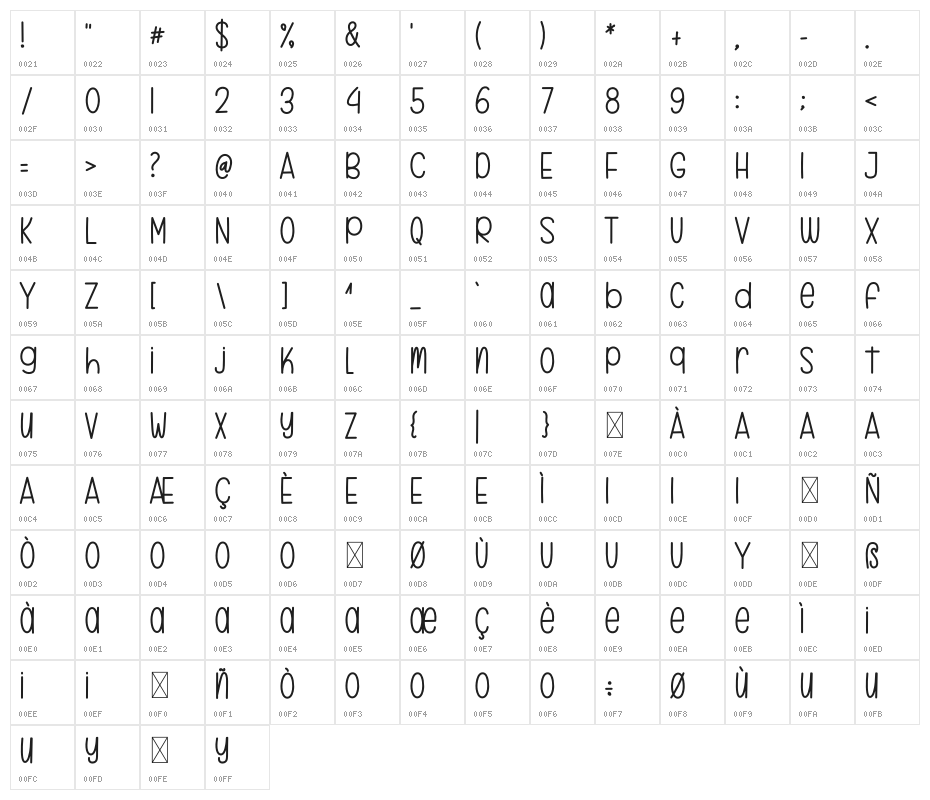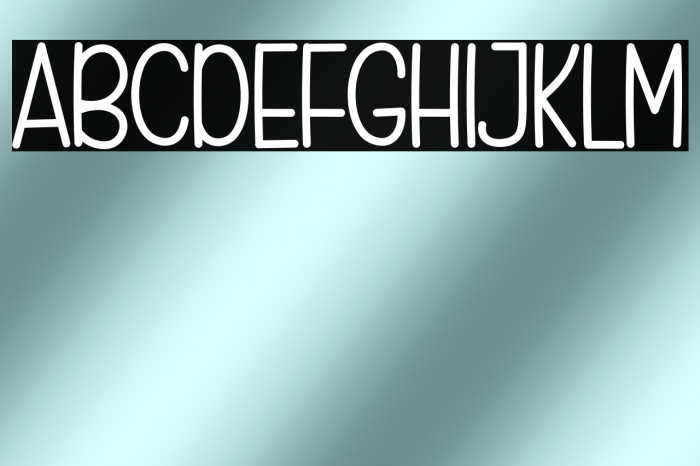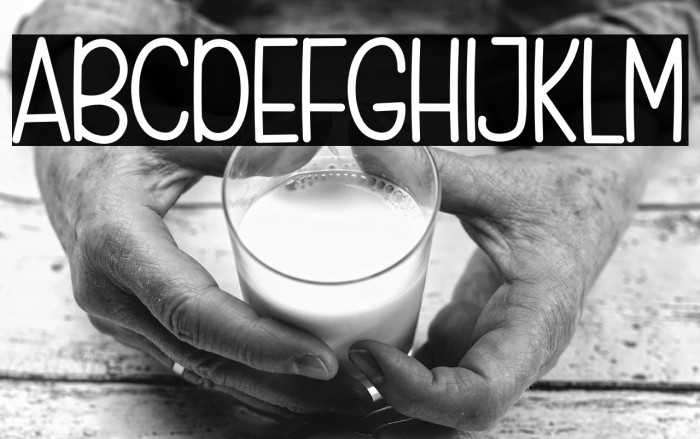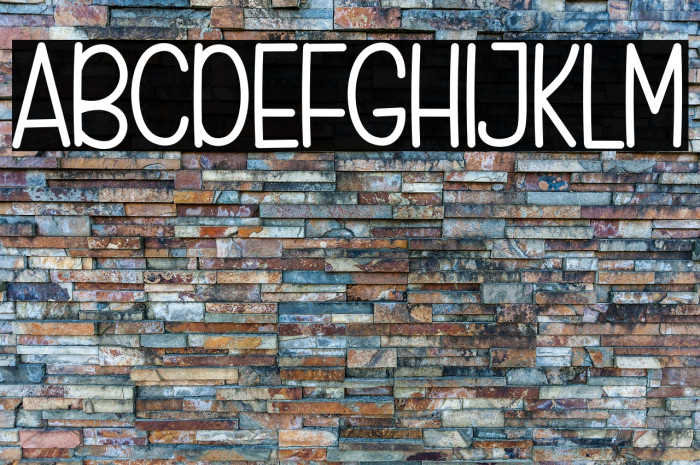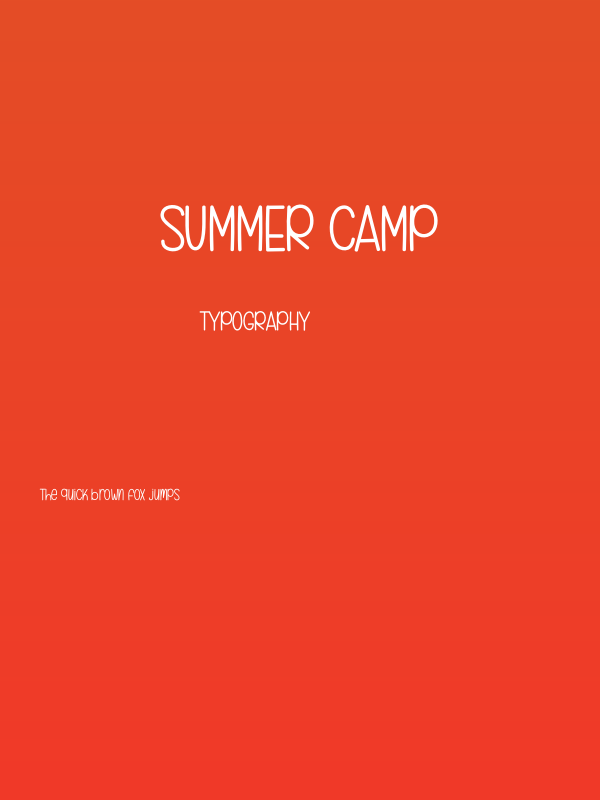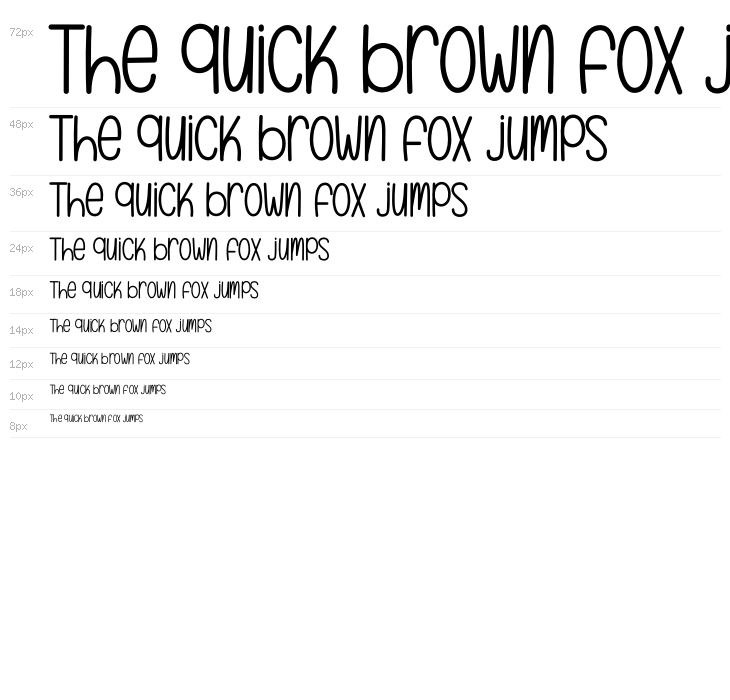
SUMMER Camp Font
This playful and rounded font features a handwritten style that exudes a casual and friendly vibe. The characters are tall and slightly narrow, with smooth curves and a consistent stroke width that gives it a clean appearance. The uppercase and lowercase letters maintain a uniform height, enhancing readability. The numerals and special characters are designed to match the overall aesthetic, making it versatile for various applications. Its simplicity and charm make it ideal for projects that require a personal touch.
| Use Case | Headlines, Informal text, Branding |
| Proposed Projects | Perfect for children's books, greeting cards, posters, and informal branding projects. |